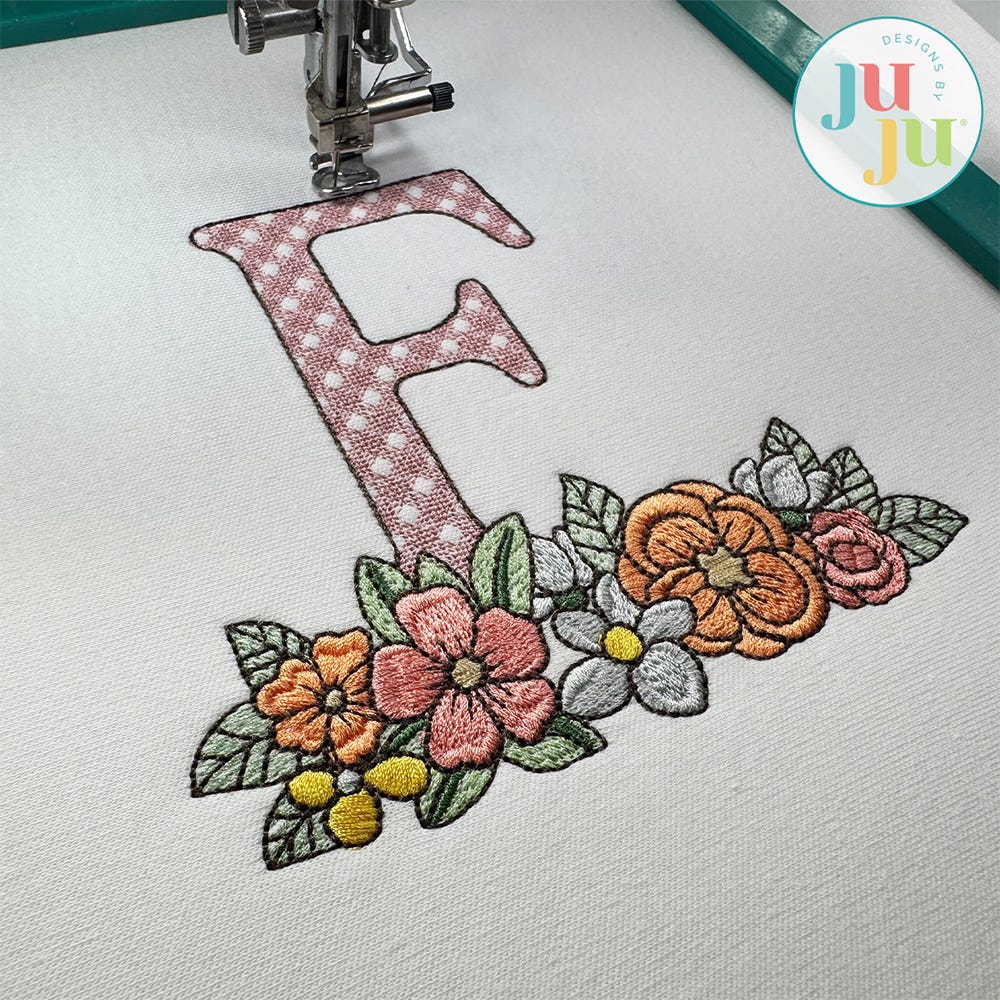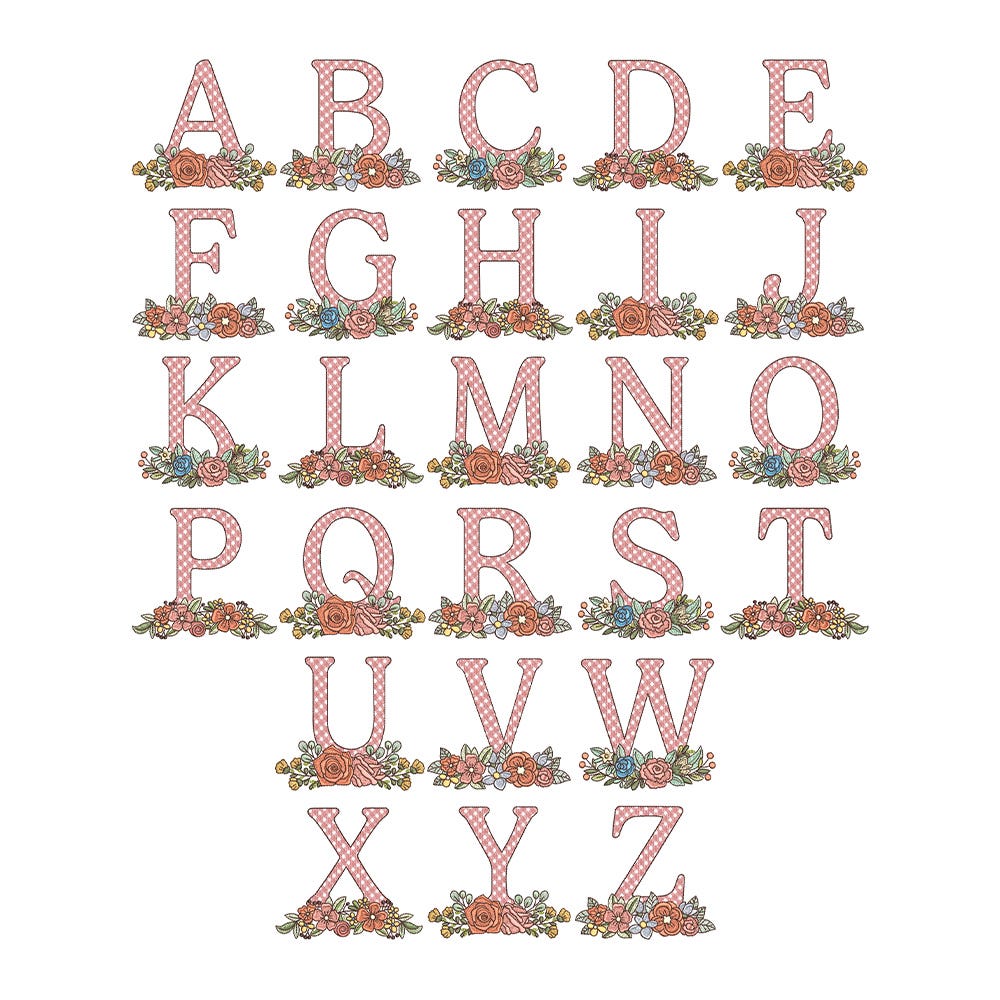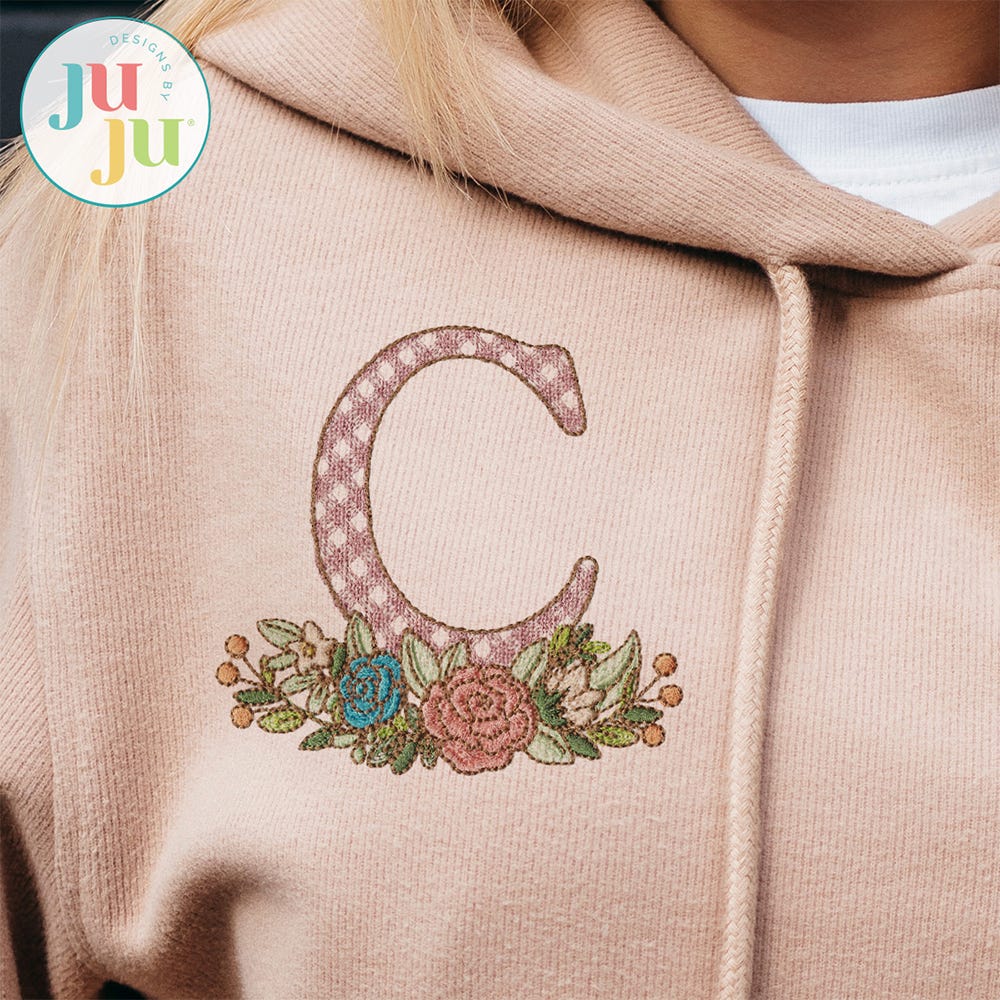
Add some fancy floral charm to your stitching projects with our embroidery-only Floral Bouquet Monogram!
The motif fill stitch letters are accented with beautiful bouquets of embroidered flowers.